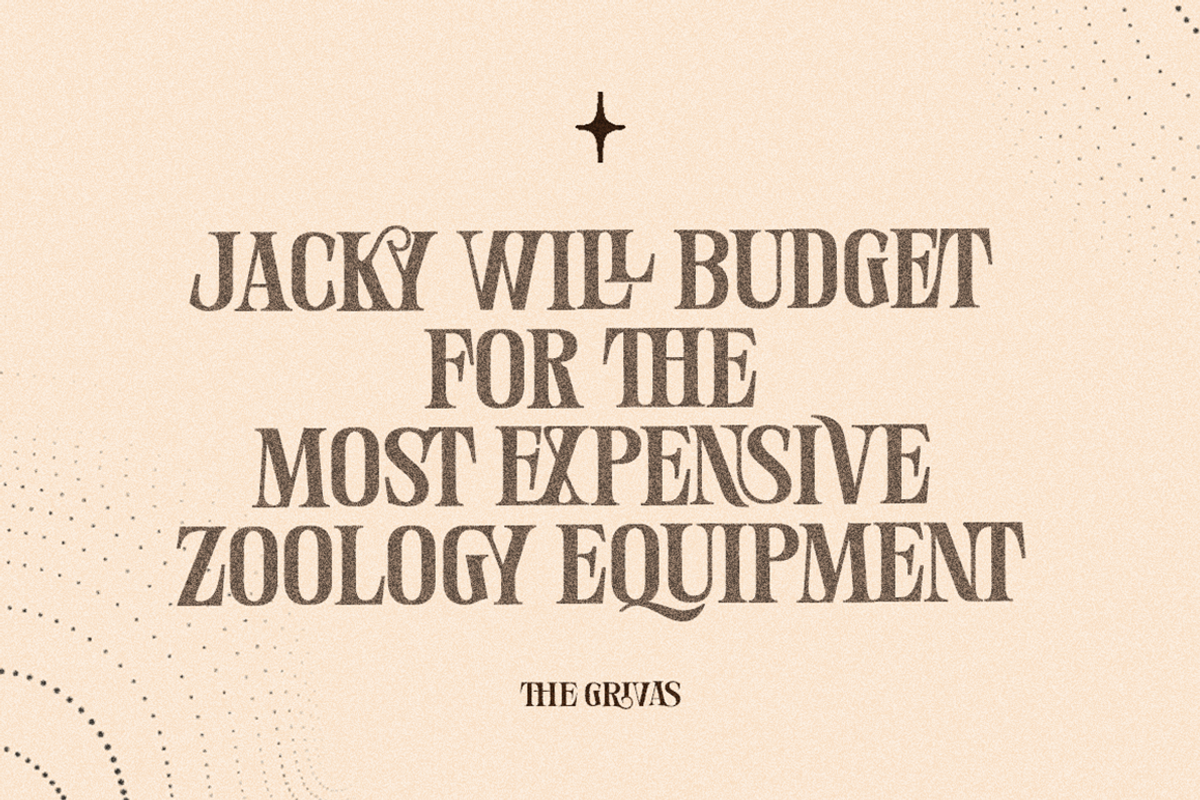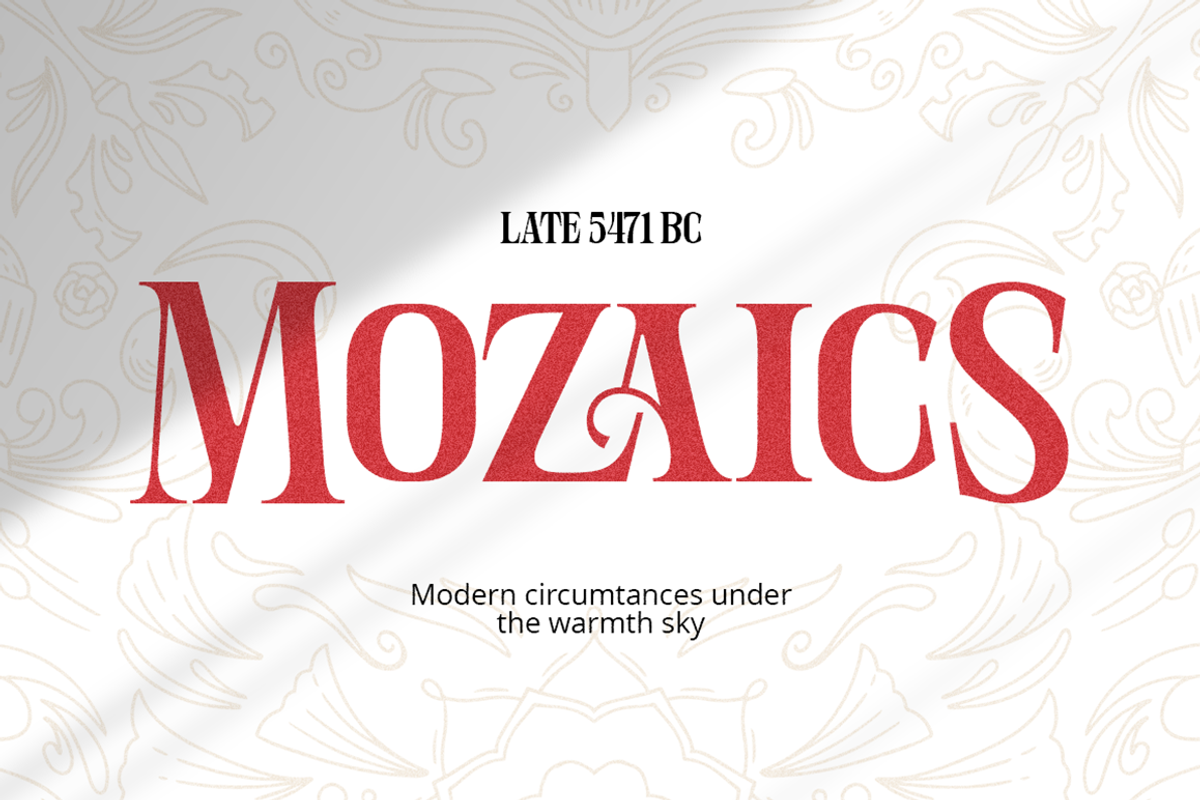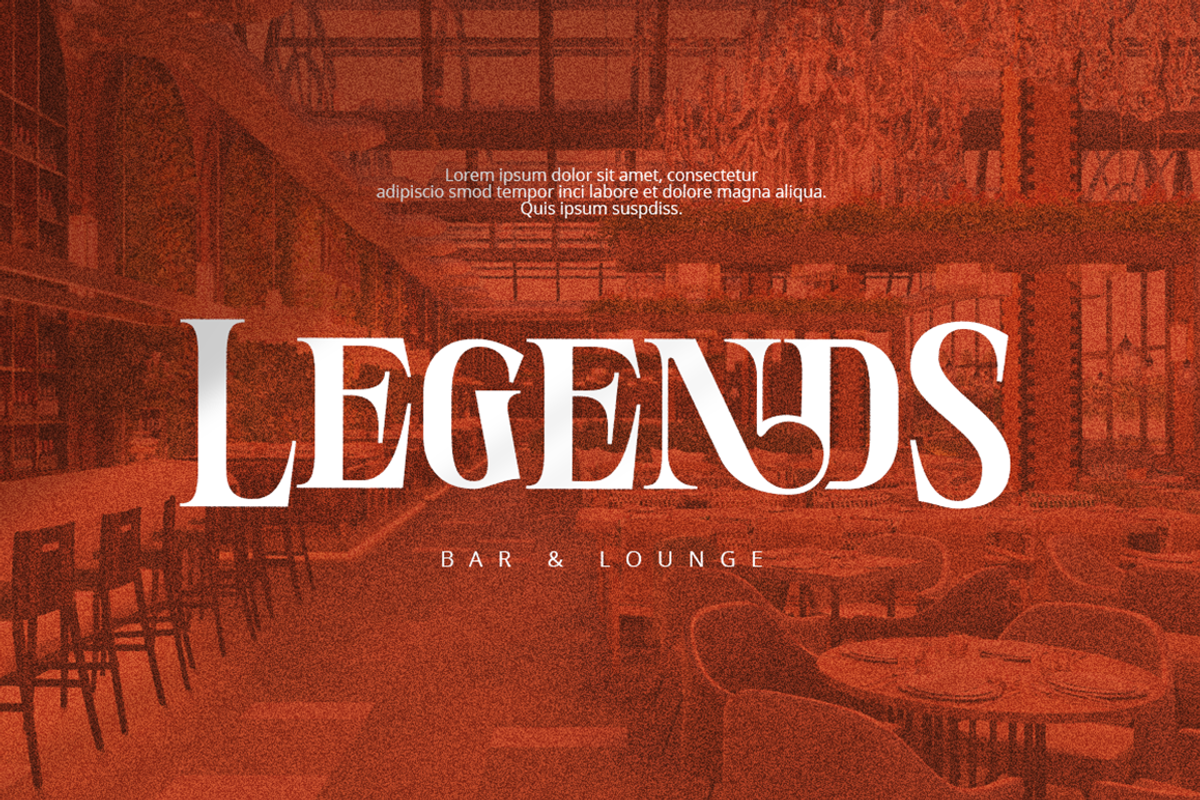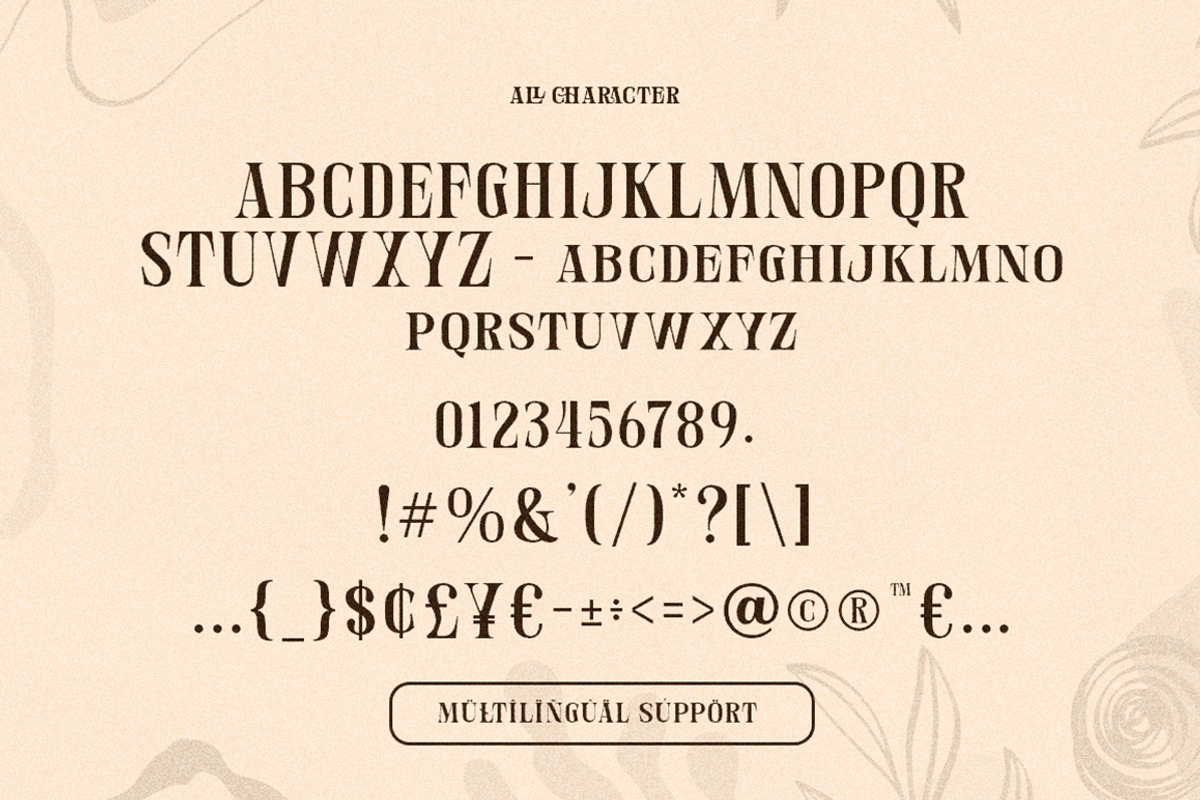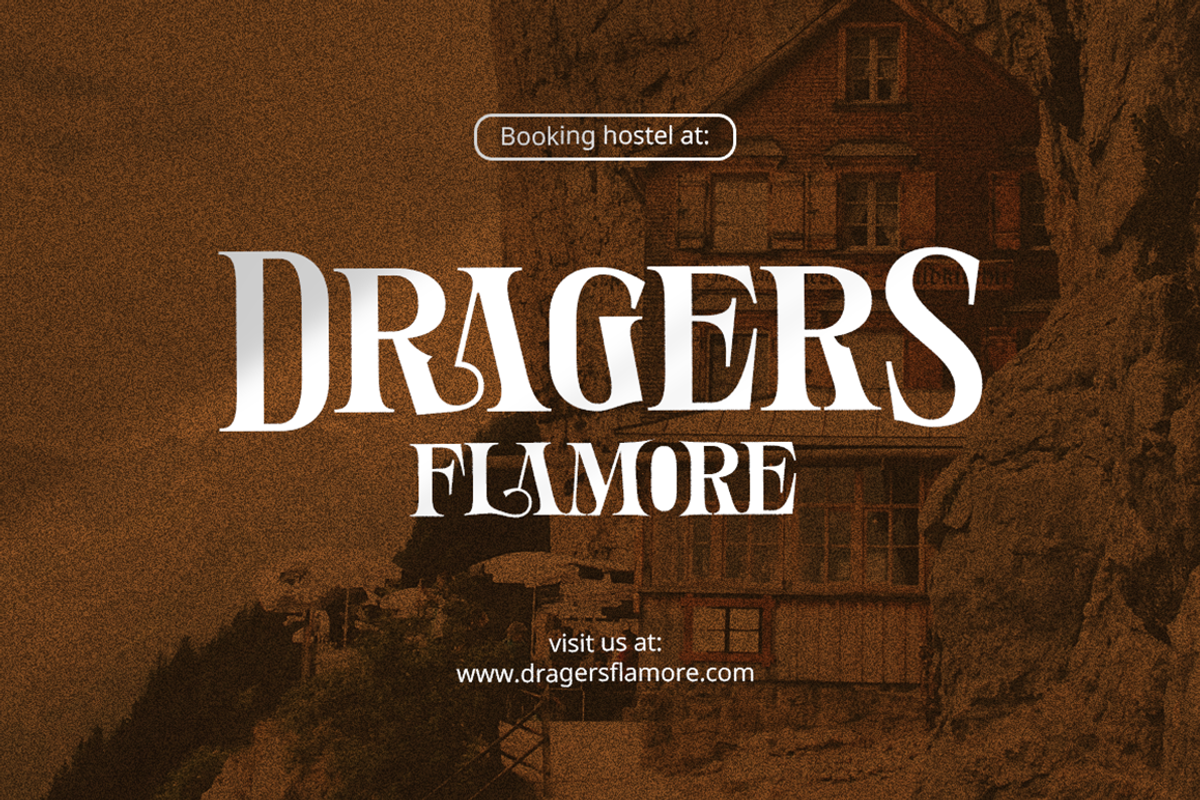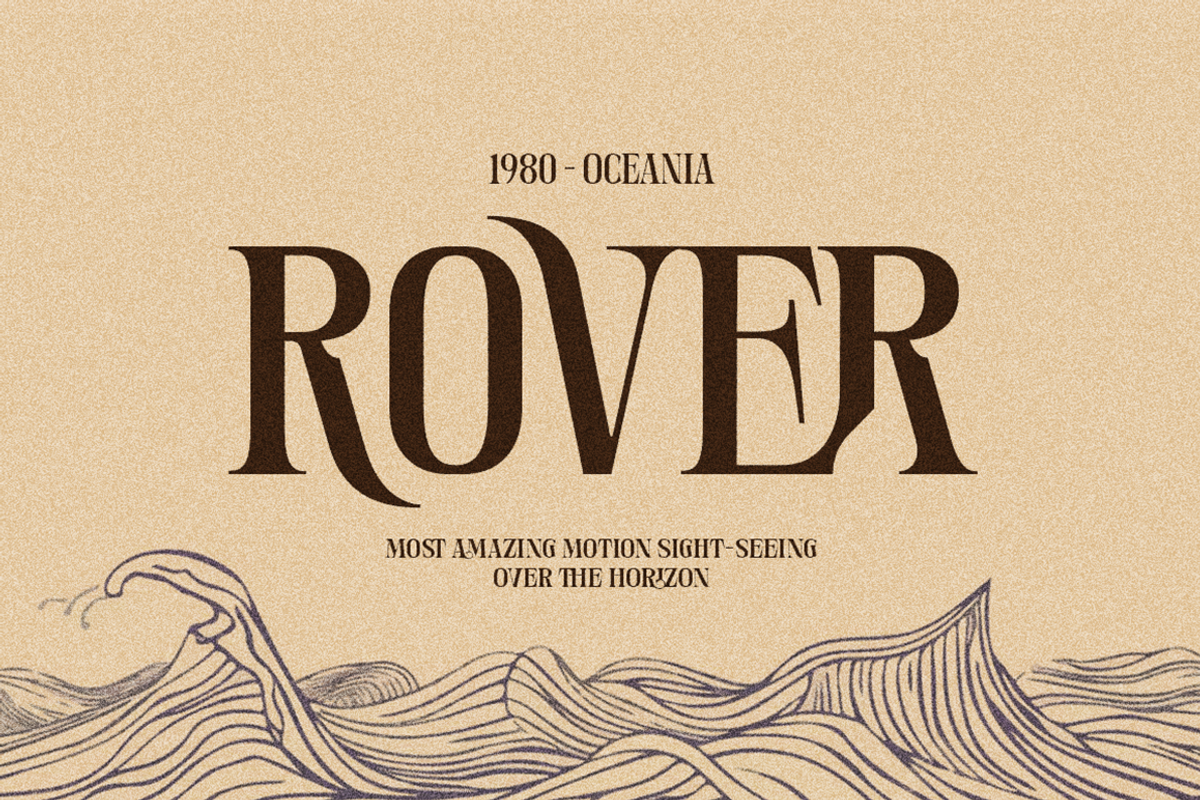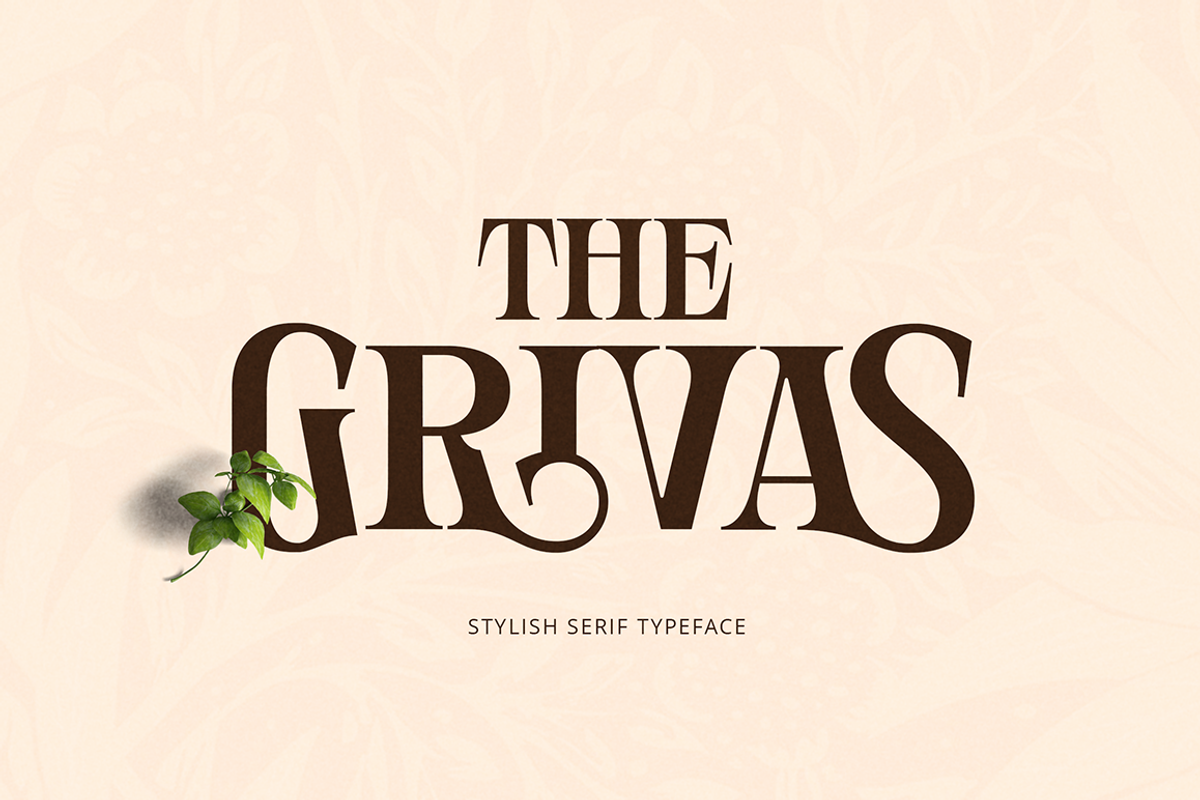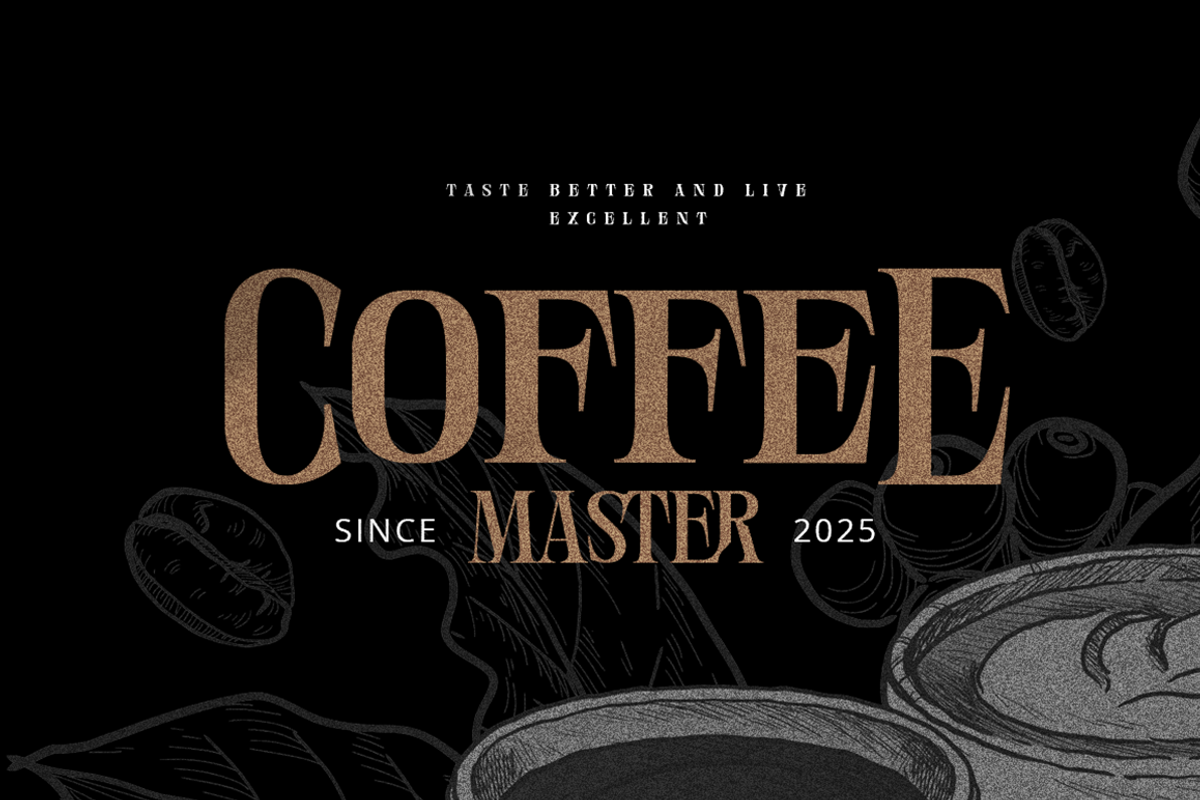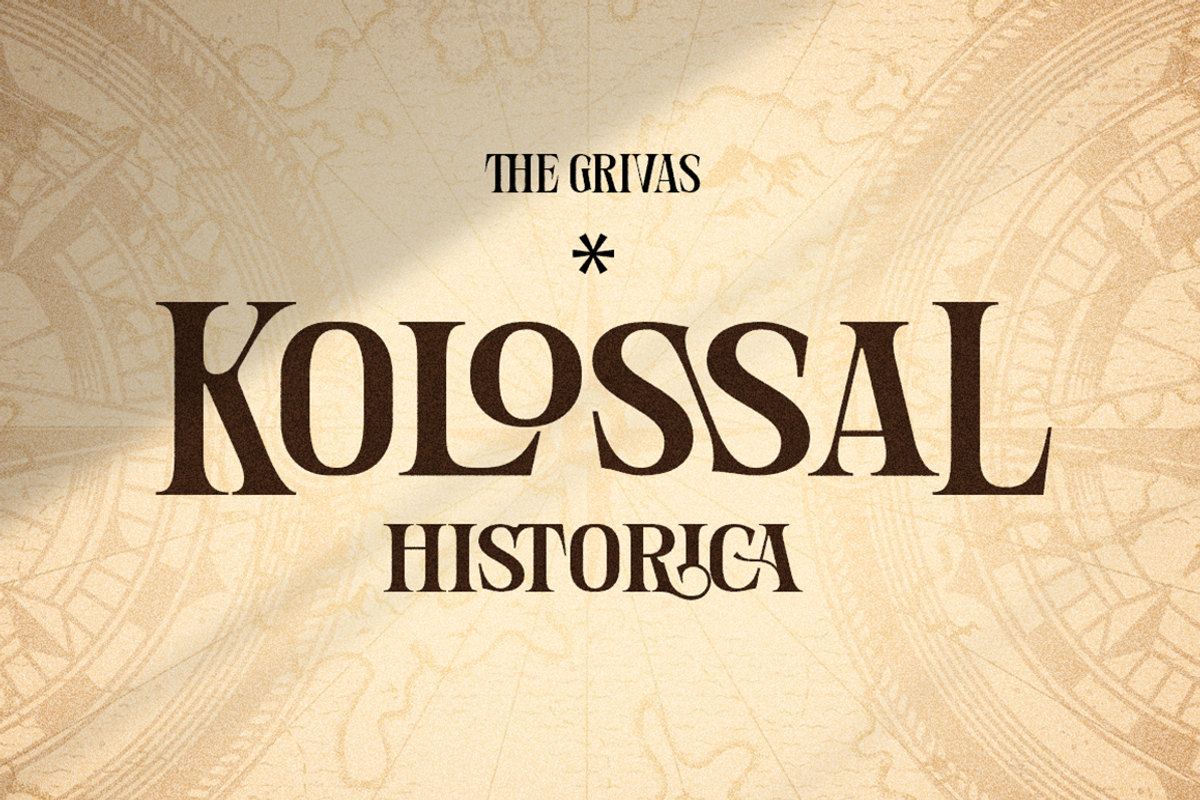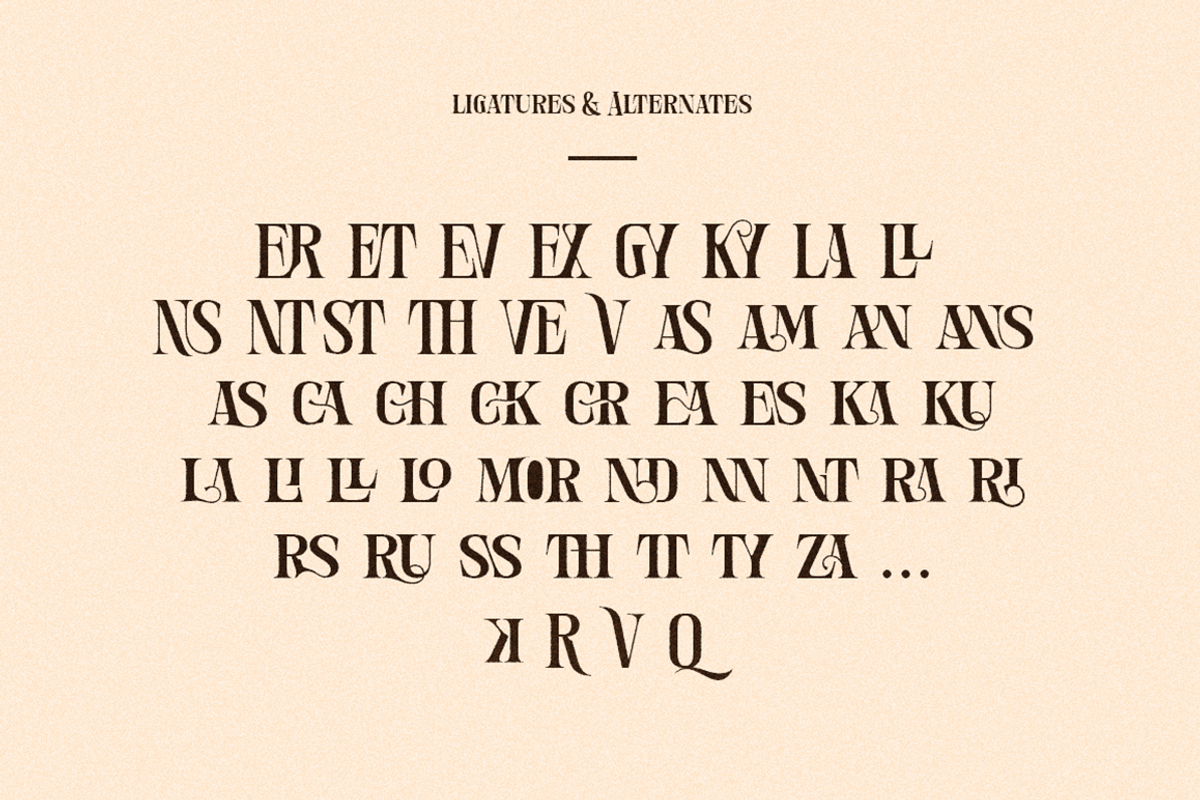
The Grivas - Stylish Serif Typeface
The Grivas is a modern and stylish serif typeface designed to make a bold and elegant statement. Featuring a refined balance of classic serifs with contemporary design, this font is ideal for high-impact headers, sophisticated wedding stationery, and timeless logotypes. What sets The Grivas apart is its collection of unique ligatures and beautiful alternates that bring a touch of artistry to every letterform. Whether you're aiming for minimal elegance or a luxurious visual identity, this typeface adds charm and versatility to your creative work.
- Modern and Stylish Serif Font
- Basic Latin Glyphs
- Unique Characters
- Awesome ligature Pairs
- Currencies